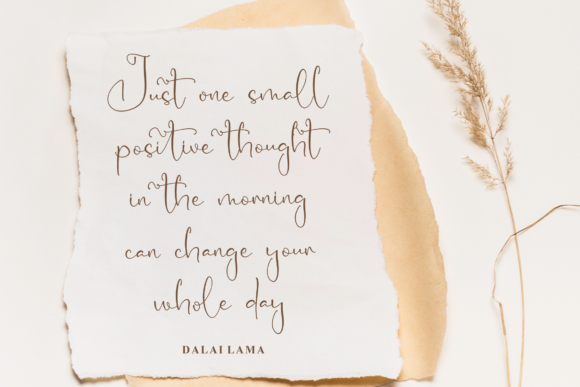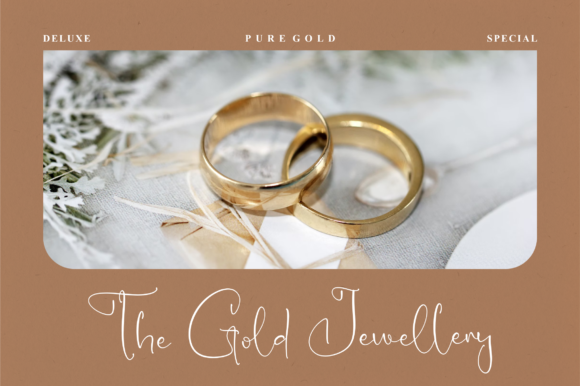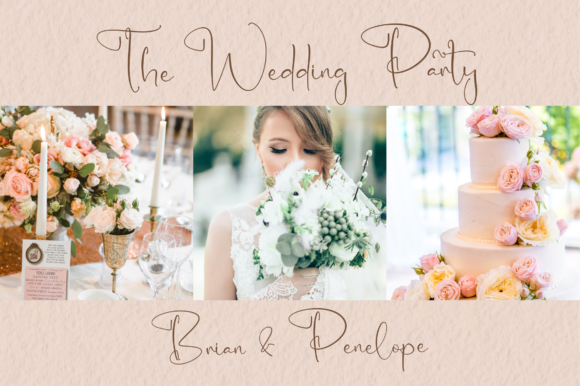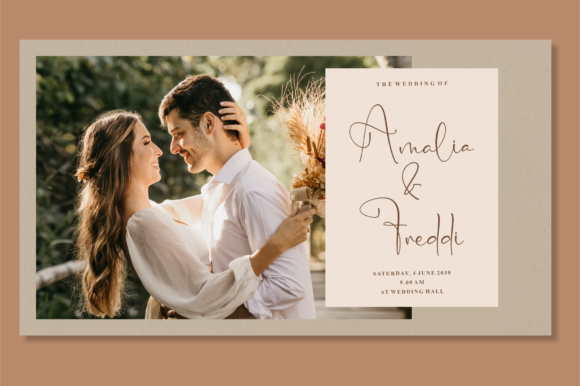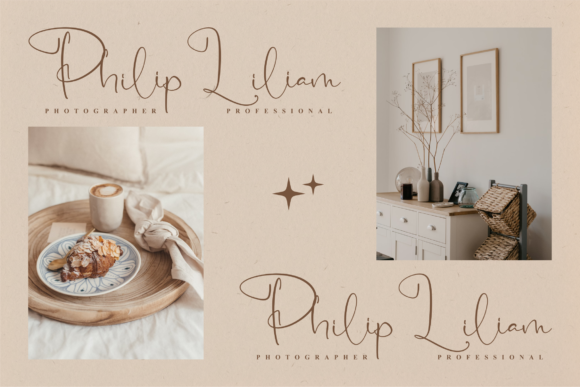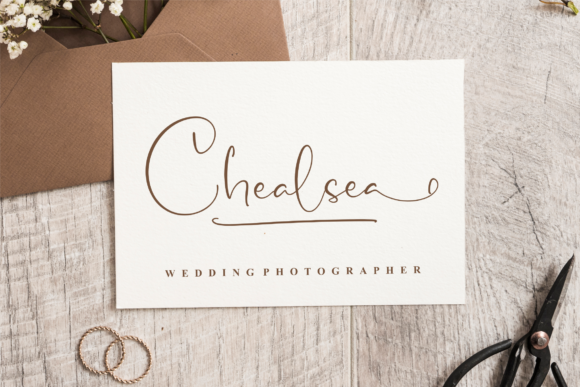
Introduction to Madeline Font
As I sat at my desk, surrounded by scraps of paper and abandoned sketches, I found myself searching for the perfect font to add that extra touch to my creative project. It wasn’t until I stumbled upon the Madeline Font that everything fell into place. Its elegant, handwritten style perfectly captured the essence of my design, and I knew I had to share it with the world.
For designers, having access to high-quality fonts like the Madeline Font can be a game-changer. Not only do they add a touch of sophistication to our designs, but they also provide a valuable resource for creating unique and memorable pieces. With its PUA encoding, the Madeline Font allows for seamless access to all its glyphs and swashes, making it a must-have for any design project.
Key Features of Madeline Font
- High-quality, elegant script font perfect for creative projects and design resources.
- Unique, hand-drawn design with a touch of sophistication, making it a standout choice for creative projects.
Honest Review: Madeline Font
As a designer, I’m always on the lookout for high-quality design resources that can elevate my creative projects. I recently stumbled upon the Madeline Font, and I must say it’s a gem. The font’s elegant and sophisticated design makes it perfect for projects that require a touch of sophistication.
- ✨ The high-quality design makes it perfect for both digital and print projects.
- ⚠️ The font may not be suitable for projects that require bold or dramatic text, as it can come across as too elegant.
- ⚠️ The font family is relatively small, which may limit its versatility in certain projects.
Overall, I’m impressed with the Madeline Font. Its elegant design and high-quality construction make it a valuable addition to any designer’s toolkit. While it may not be suitable for every project, it’s definitely worth considering for creative projects that require a touch of sophistication.
Tips for Getting the Most Out of Madeline Font
To get the most out of Madeline Font, use it with a transparent background to create a seamless look. You can also experiment with different font sizes and styles to add visual interest to your design.
Madeline Font is commonly used in creative projects such as wedding invitations, business cards, and brochures. It’s also a great choice for designing social media graphics, presentations, and documents that require a high-quality and professional look.